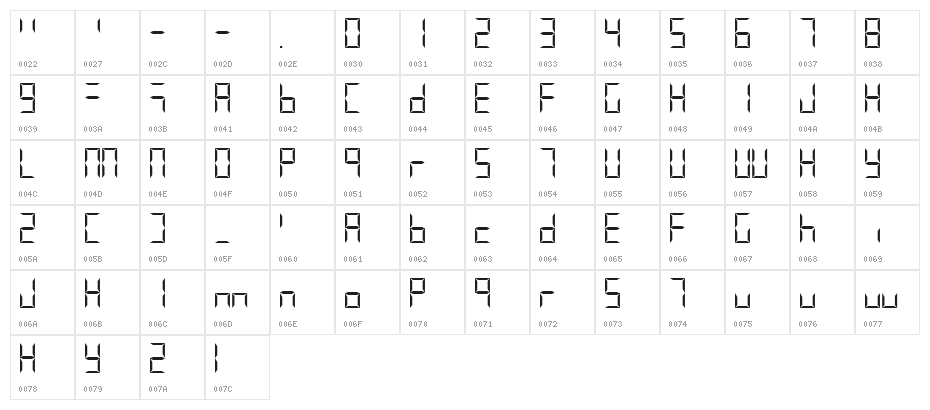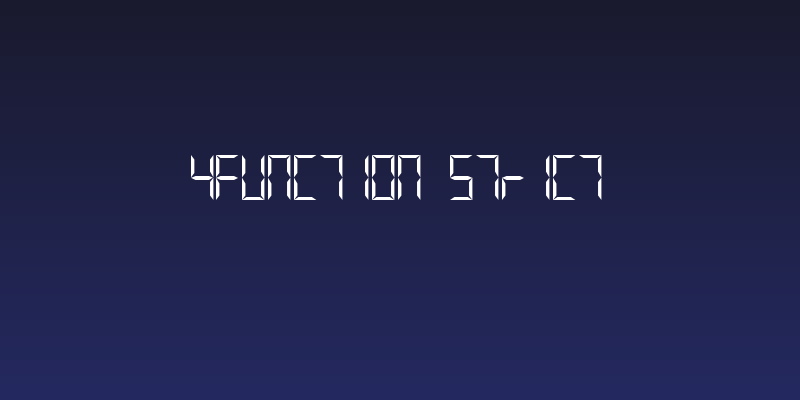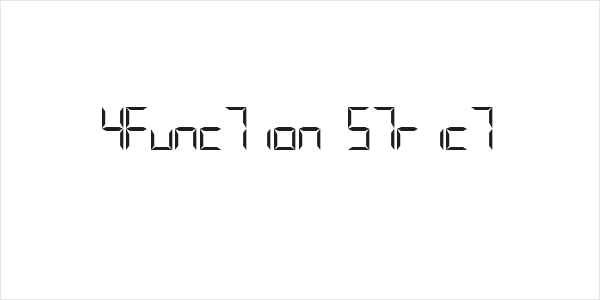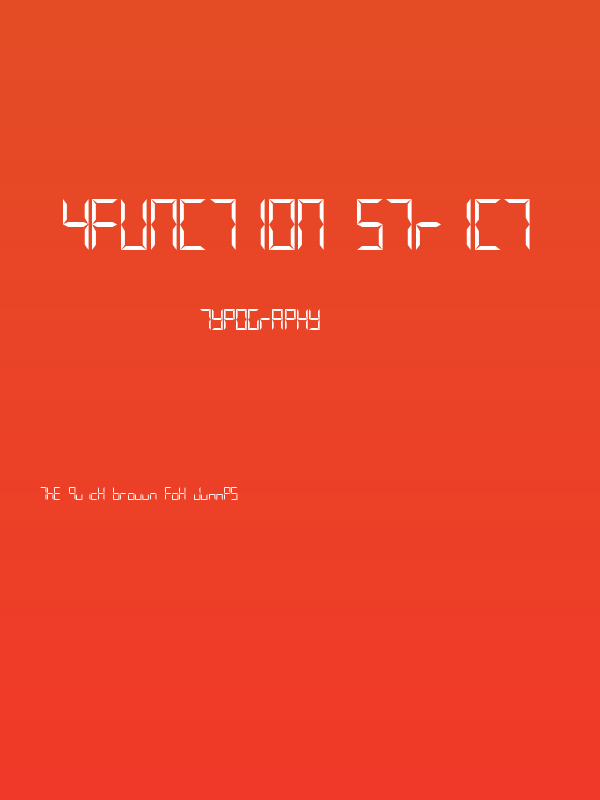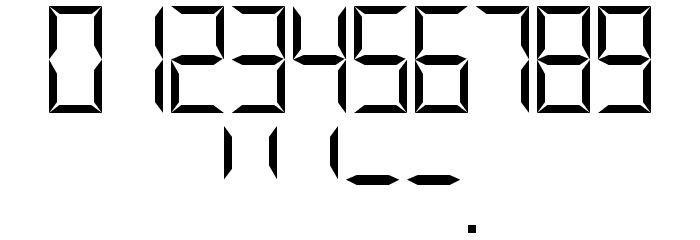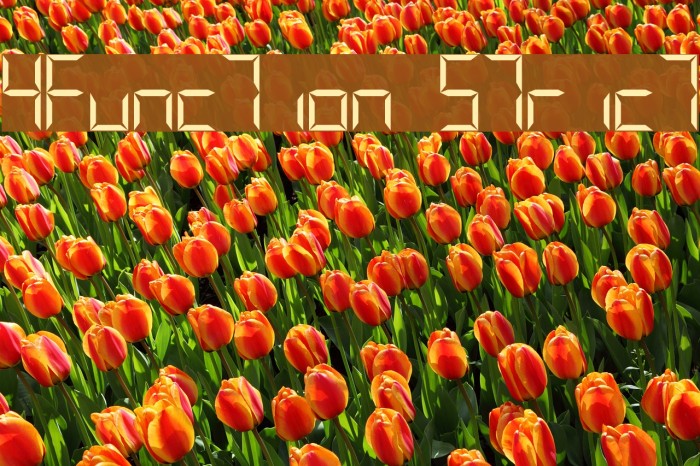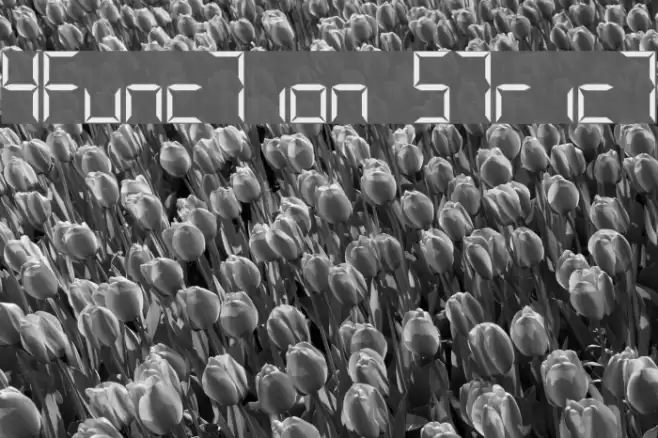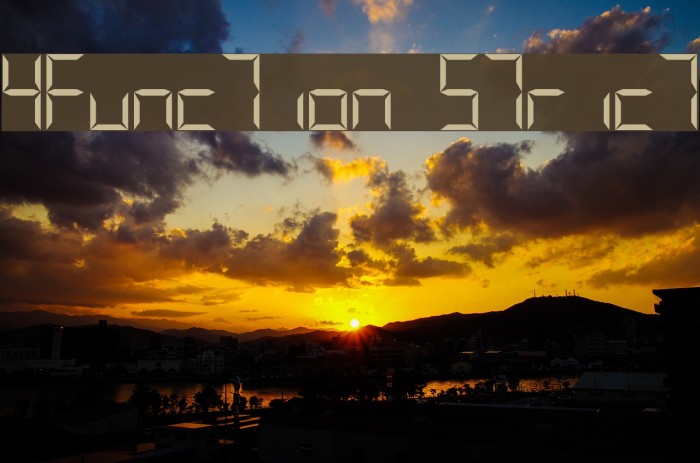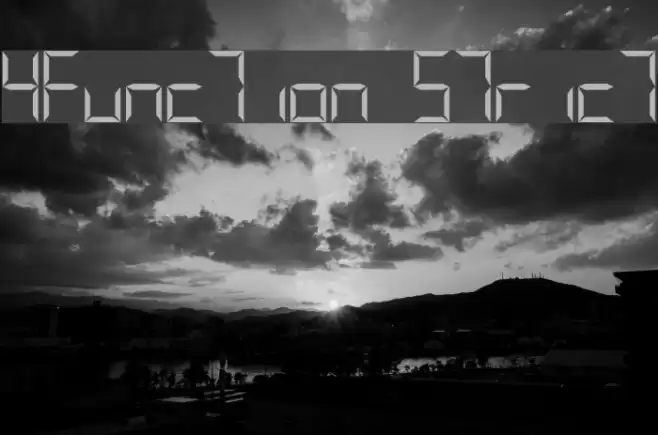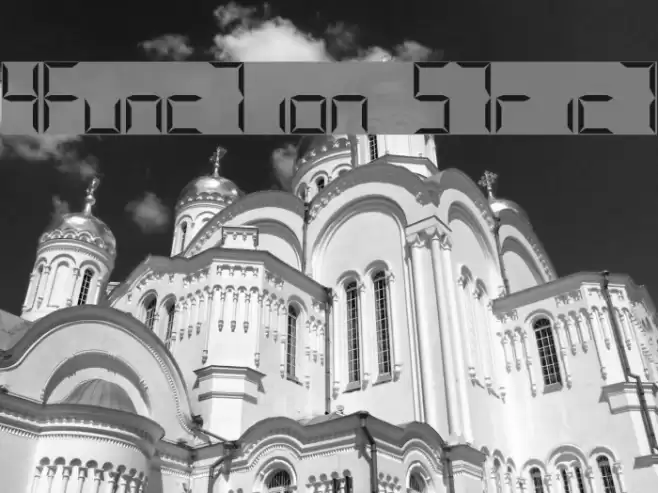
4Function Strict Font
4Function Strict Description
This font features a distinct digital, segmented style reminiscent of LED displays or digital clocks. Each character is composed of angular, geometric shapes that create a futuristic and technological appearance. The uniformity in the design gives it a structured and mechanical feel, making it highly legible in digital contexts. The uppercase and lowercase letters maintain a consistent height, while the numerals and special characters seamlessly integrate into the overall design. Its unique style is both modern and retro, capturing the essence of digital typography.
| Use Case | Logos, Digital displays, Tech interfaces |
| Proposed Projects | Ideal for digital interfaces, tech-themed posters, video game graphics, and electronic device displays. |